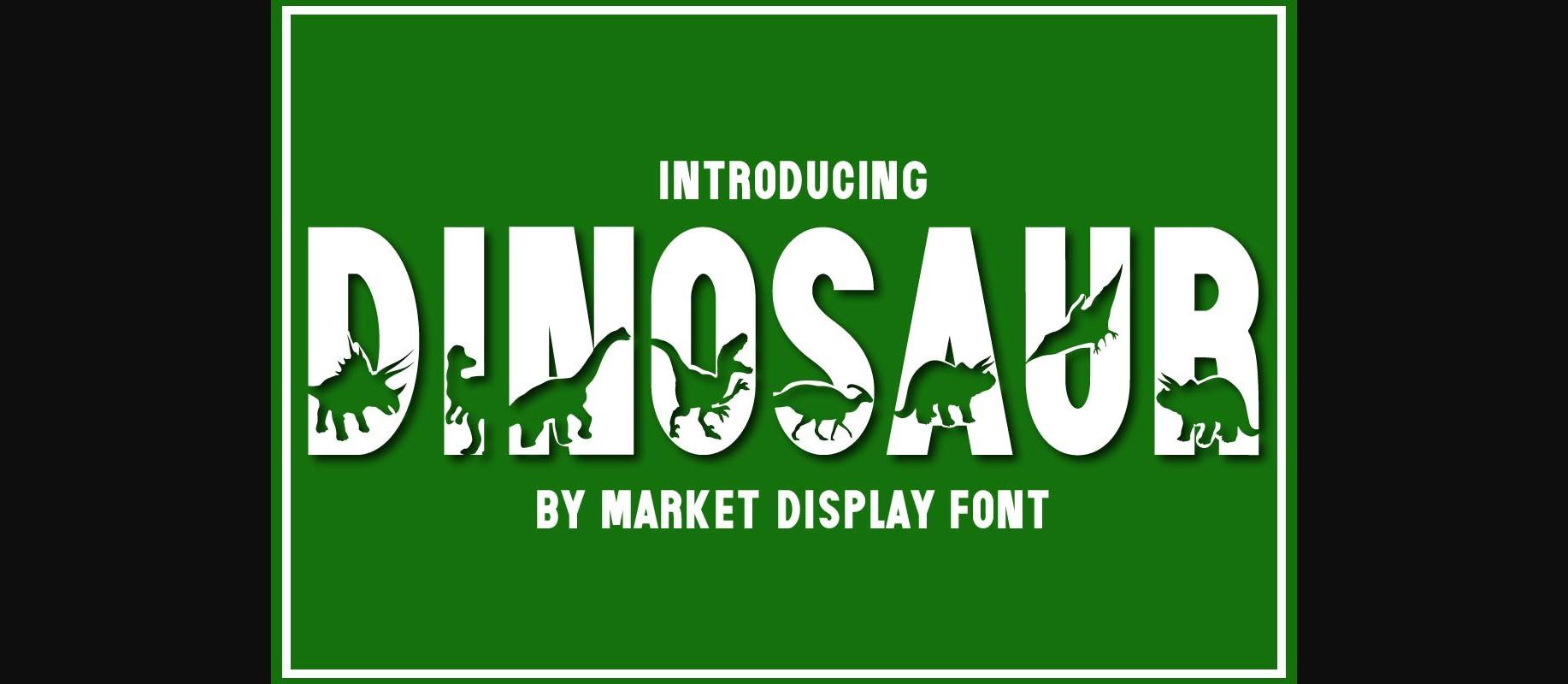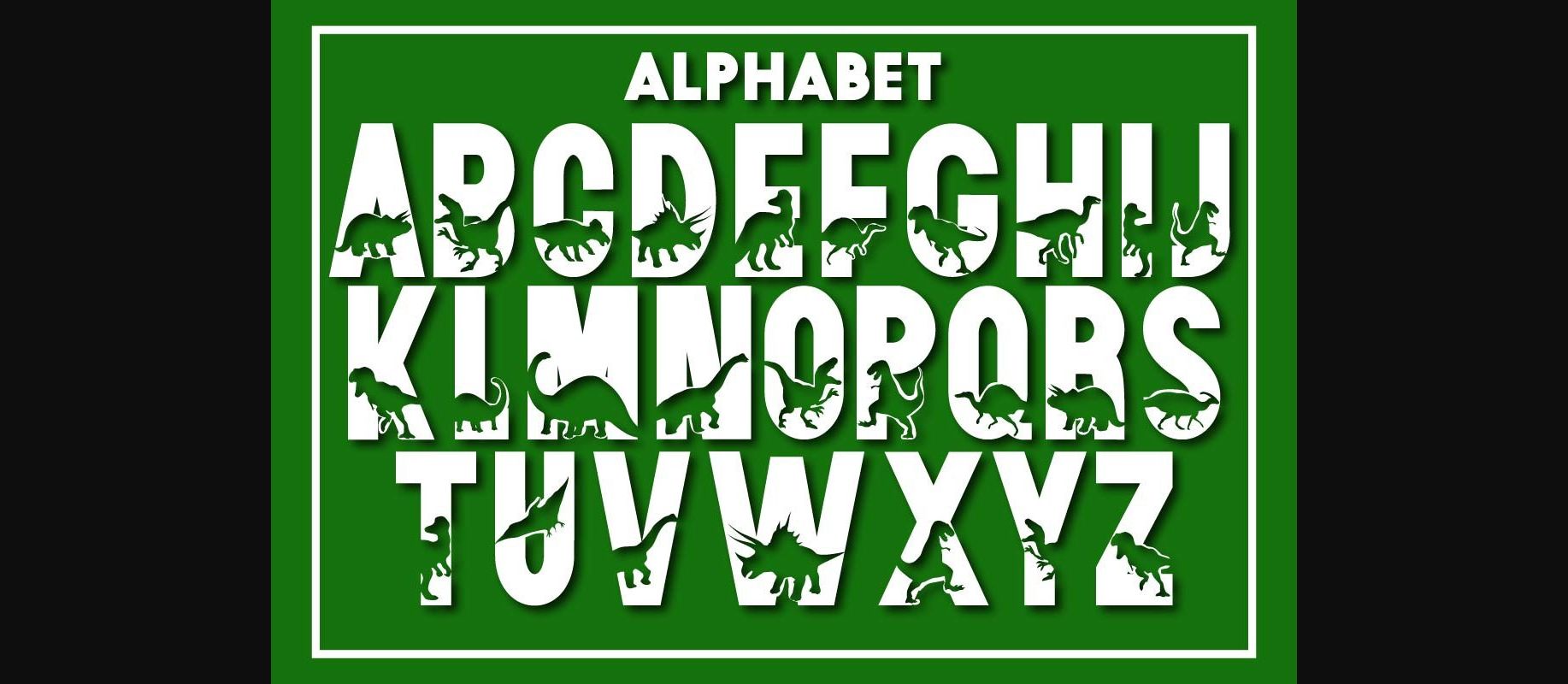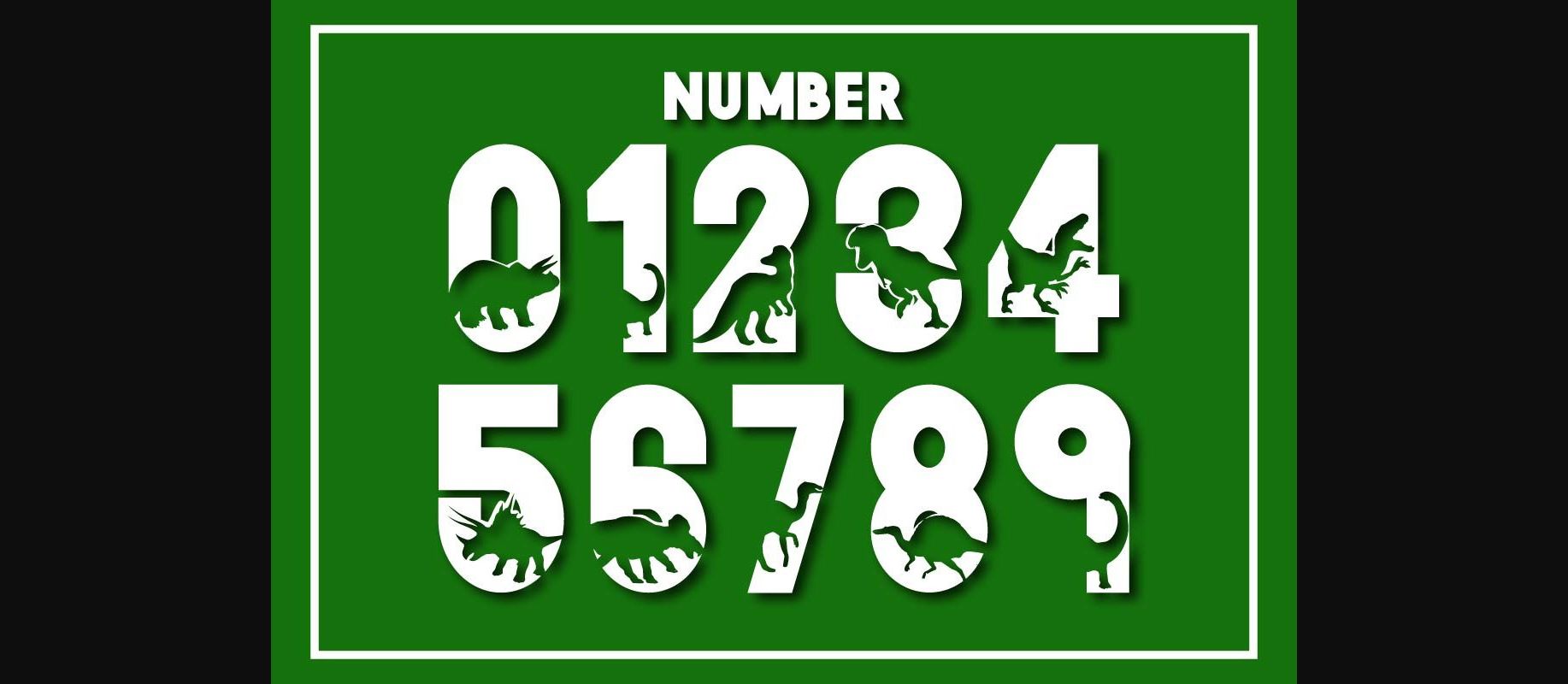
Dinosaur Font
About Dinosaur Font
Dinosaur is a fun and chunky lettered decorative font, featuring lovely dinosaurs as ornaments. This original look will appeal to a wide range of crafty ideas, from letterheads and titles, to stationery.